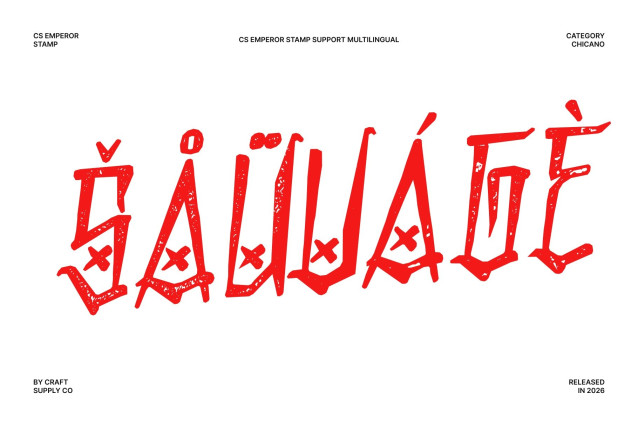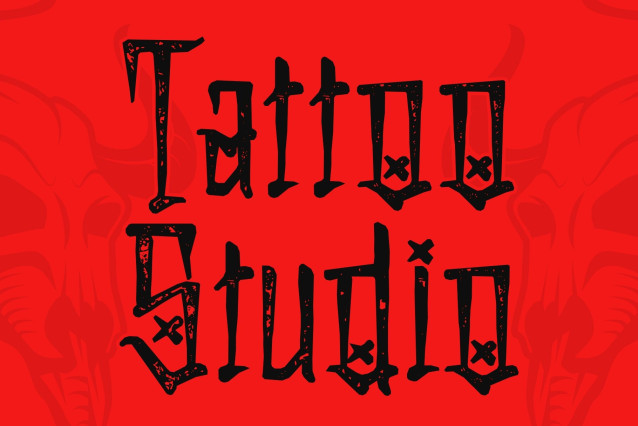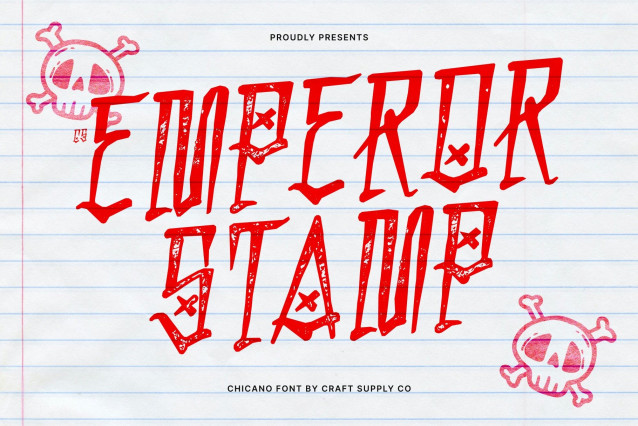
CS Emperor Stamp Font
CS Emperor Stamp – Chicano Graffiti Font: A Bold Expression of Urban Culture
Chicano Graffiti Display Font
This font is a bold display font that brings the energy of street art to life. Combining intricate details with playful, expressive elements, this font captures the rebellious spirit of urban culture.
Fluid Curves and Sharp Angles
Featuring fluid, dynamic curves and sharp, striking angles, this font offers a unique visual appeal. Its blend of flowing forms and bold edges creates a font that is both lively and impactful, perfect for designs that demand attention.
Stamp Texture with Vintage Street Character
Enhanced with a distinctive stamp effect, this font gains a gritty vintage personality. The textured, ink-pressed appearance introduces subtle imperfections inspired by hand-printed posters and urban street graphics, adding depth, authenticity, and a raw artistic feel to every letterform.